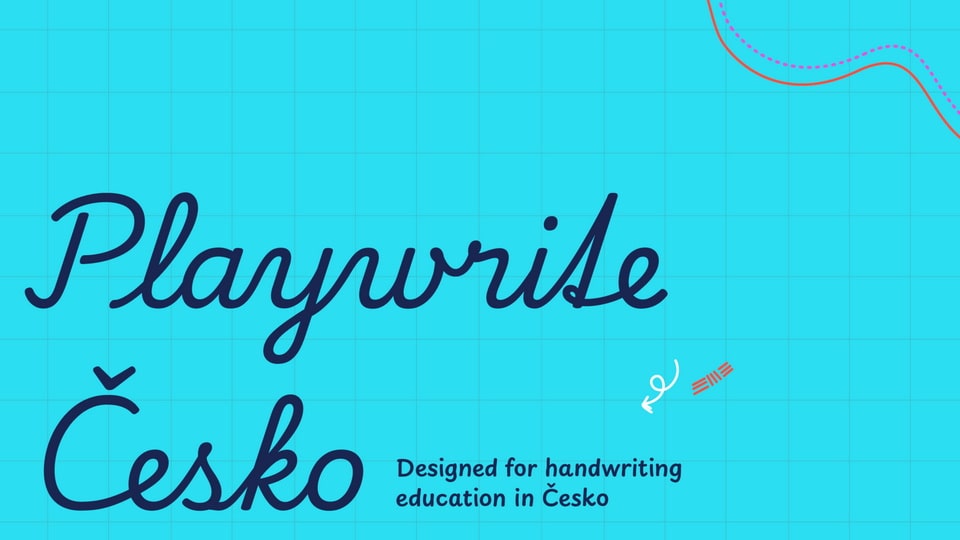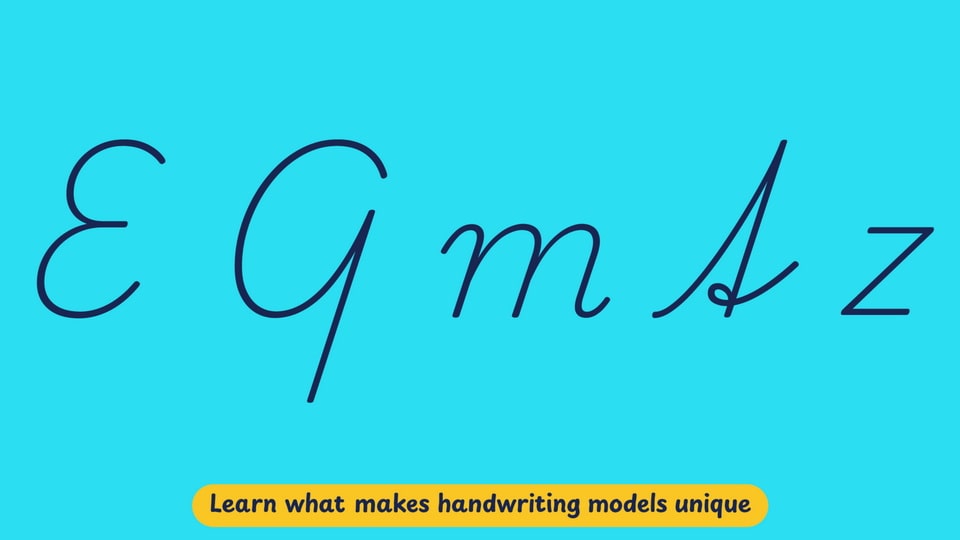
Playwrite is a typeface engine that allows the creation of primary school cursive fonts.
There are two main models used for handwriting education in the Czech Republic. The first, known as Zjednodušená psací latinka, or Simplified Latin script, is a continuous cursive hand. This model was officially ratified by the education ministry of erstwhile Czechoslovakia in 1932 and underwent its last revision in 1978. The second model, Comenia Script, features unjoined letters and was endorsed by the ministry in 2012. The national curriculum, which was last published in 2013, provides no further prescriptions about handwriting, and as a result, schools have the autonomy to select either model for instruction.
Based on Zjednodušená psací latinka, this slanted continuous cursive features medium to short extenders and is executed at a slow stroke speed. The capital letters maintain a cursive, mostly unadorned structure, with distinctive traits such as an unusually constructed ‘Q’ and a vertical spine in ‘S’. Lowercase letters have loops on extenders but lack knots, with the exception of the German-style ‘t’. Several lowercase letters begin with curved entry strokes. The letter ‘z’ is styled in a plain italic form and does not have a descender.